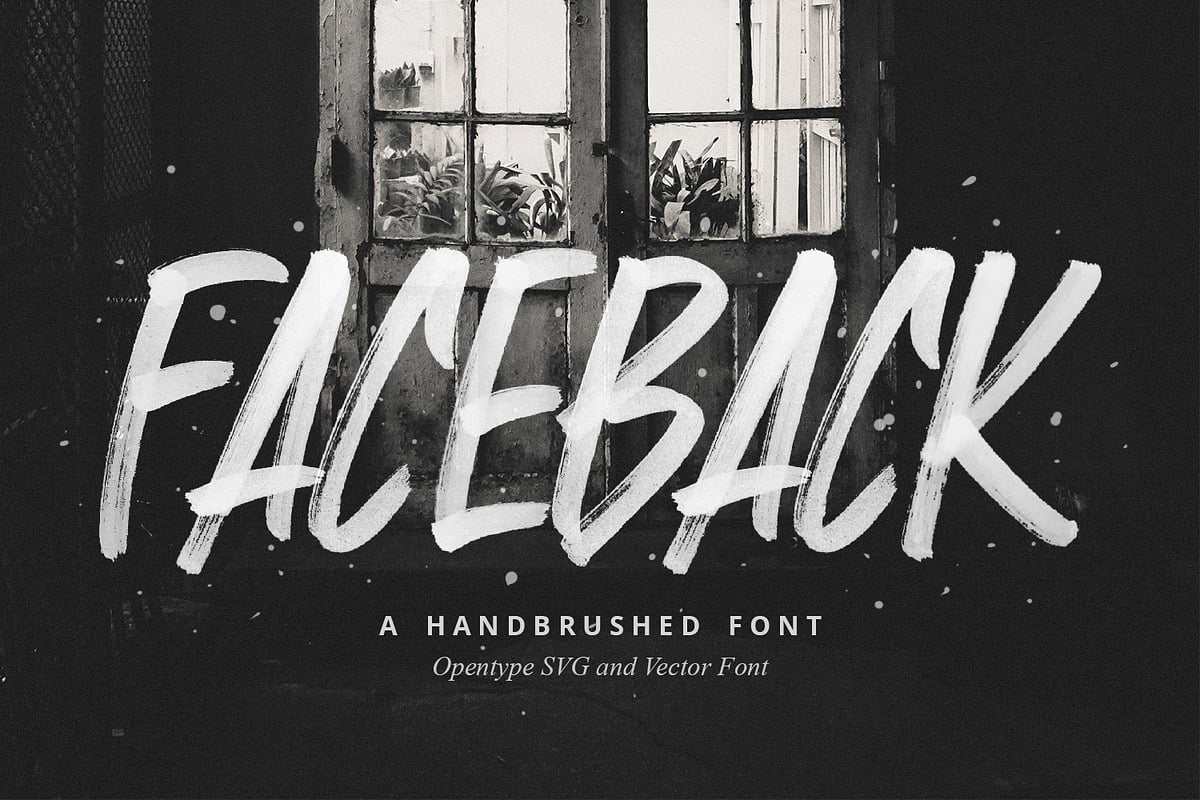
Faceback - SVG Brush Font
Capture the raw energy of hand-brushed lettering with Faceback — a bold, textured SVG brush font built for standout design.
Faceback is crafted with authentic brush texture, delivering a level of realism that mimics the natural stroke of a brush pen. The result is a sharp, expressive typeface with a rough, urban edge that brings genuine character to any project.
With its large, commanding display presence, Faceback is ideal for:
- Posters and advertising campaigns
- Packaging and product branding
- Headlines and signboards
- Urban and streetwear-inspired design work